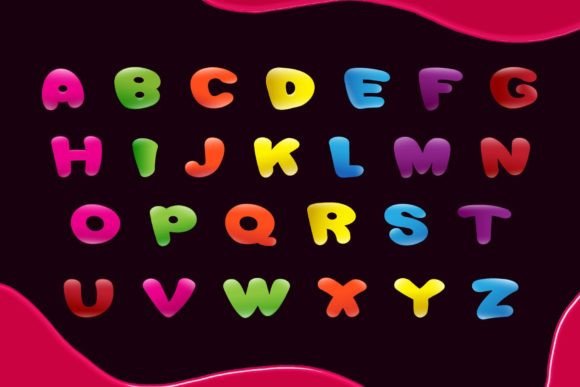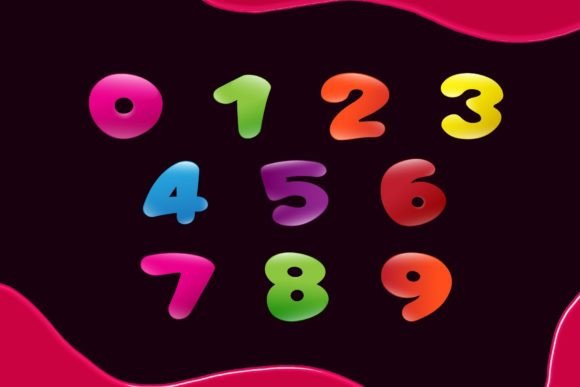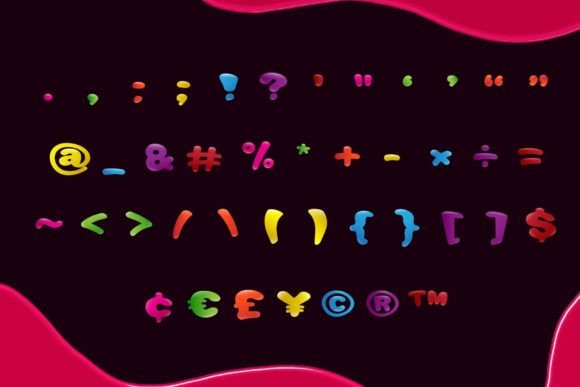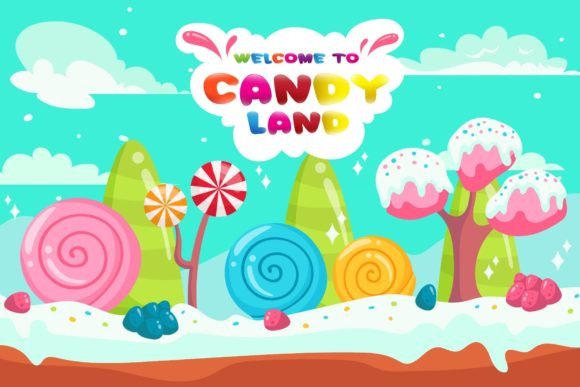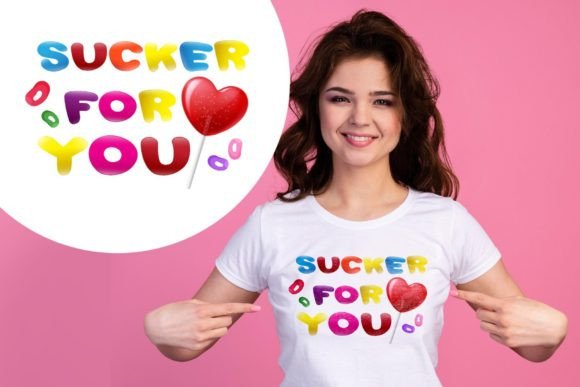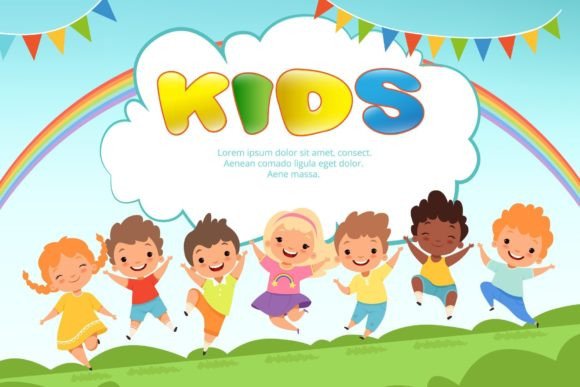
Gummy Font: The Sweetest Addition to Your Design Collection
Are you tired of using the same old fonts in your designs? Look no further than Gummy Font, a color font that’s sure to add a touch of fun and whimsy to your creations. With its soft, cute, bright, and fun feel, Gummy Font is perfect for designers and crafters who want to make their work stand out.
What is Gummy Font?
Gummy Font is a specially designed color font that features a unique and authentic feel. Its soft and cute appearance makes it perfect for a wide range of design projects, from invitations and stationery to social media posts and greeting cards. The font’s bright and fun colors are sure to capture the attention of your audience and leave a lasting impression.
Uses for Gummy Font
Gummy Font is incredibly versatile and can be used in a variety of design projects, including:
- Invitations: Create gorgeous invitations for parties, weddings, and other special events with Gummy Font.
- Stationery: Add a touch of fun and whimsy to your stationery with Gummy Font.
- Social Media Posts: Make your social media posts stand out with Gummy Font’s bright and fun colors.
- Greeting Cards: Create cute and personalized greeting cards with Gummy Font.
Why Choose Gummy Font?
So why should you choose Gummy Font for your design projects? Here are just a few reasons:
- Unique and Authentic Feel: Gummy Font has a unique and authentic feel that’s sure to capture the attention of your audience.
- Versatile: Gummy Font can be used in a wide range of design projects, from invitations and stationery to social media posts and greeting cards.
- High-Quality: Gummy Font is a high-quality font that’s designed to produce stunning results.
Tips for Using Gummy Font
Here are a few tips for using Gummy Font in your design projects:
- Experiment with Different Colors: Gummy Font is a color font, so don’t be afraid to experiment with different colors to find the perfect combination for your design.
- Use it with Other Fonts: Gummy Font can be paired with other fonts to create a unique and interesting look.
- Pay Attention to Font Size: Make sure to adjust the font size to suit your design and ensure that the text is easy to read.